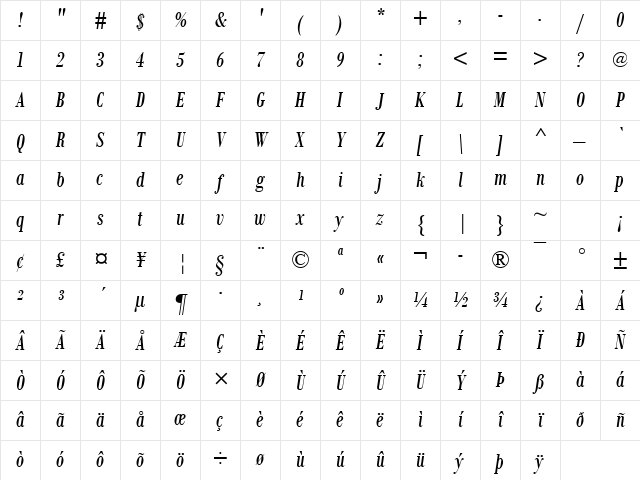
Bodoni MT Condensed Italic
Foundry: Monotype Typography
Design Context for Bodoni MT Condensed
Bodoni MT Condensed is a composed and adaptable typeface that performs quietly and consistently across a wide range of design contexts. The slanted form adds forward momentum and visual energy. Its narrow stance lets it pack a punch even in space-constrained designs.
Pro Tip: Use Bodoni MT Condensed for emphasis, pull quotes, and subheadings where its slanted energy can add rhythm to the layout.
Who designed the Bodoni MT Condensed Italic font?